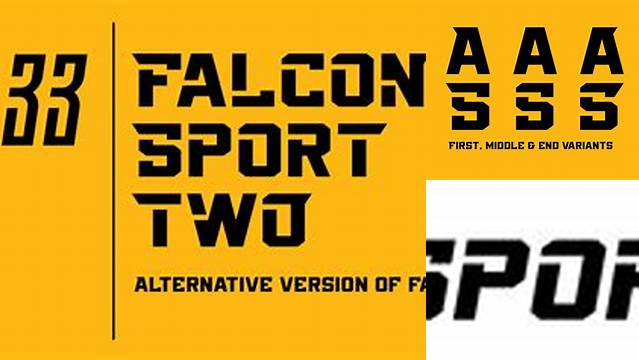
Diving Deeper: Exploring the Styles of Falcon Sport Font Family
If you're a font aficionado, you'll love this: the Falcon Sport Regular font often comes as part of a larger font family. This means you might find different styles such as bold, italic, or even different weights like light or heavy. This is fantastic because it gives you tons of options for your design work! Think about it: you could use Falcon Sport Regular for the main text, Falcon Sport Bold for headings, and Falcon Sport Italic for emphasis. This variety allows you to create visually interesting and engaging layouts. When you're searching for your free download, keep an eye out for the different styles within the Falcon Sport family. They'll usually be listed in the download package or on the download website. Check the file names too; they often indicate the style (e.g., Falcon Sport-Bold.ttf). Having multiple styles at your fingertips will elevate your designs, making them look more professional and polished. Always be sure to download the fonts you want, as well as all the related ones.
Understanding the Falcon Sport Regular Font: A Detailed Look
Let's get to know the Falcon Sport Regular font a bit better, shall we? This font is generally known for its clean, modern look, making it a fantastic choice for various design projects. It's a sans-serif font, meaning it doesn't have those little strokes (serifs) at the end of the letters. This gives it a sleek and contemporary vibe. It’s a versatile font, meaning it looks good in headlines, body text, and even logos. The characters are usually well-proportioned and easy to read, contributing to its popularity. Whether you're designing a website, creating marketing materials, or working on a personal project, Falcon Sport Regular can add a touch of professionalism and style. Consider the overall tone of your project when choosing a font, and Falcon Sport Regular fits many uses perfectly. The clean lines and simple letterforms make it a popular choice for both digital and print designs. This font is widely used in sports-related branding and design, which makes it very recognizable.
The Design Aesthetics of Falcon Sport Regular
Now, let's dive into the design aesthetics. The Falcon Sport Regular font often has a balanced and harmonious appearance. The letterforms are usually well-defined, with clear shapes that make it easy to read at different sizes. The overall design often suggests strength, modernity, and a sense of movement. This can be perfect for projects related to sports, fitness, technology, or any other field that wants to convey a sense of energy and dynamism. The x-height (the height of the lowercase 'x') is generally moderate, which enhances readability. The spacing between the letters and words is often carefully considered to ensure visual comfort. Designers who favor clean and minimalist aesthetics will find Falcon Sport Regular an excellent choice. It's a font that doesn't scream for attention but provides a solid and reliable foundation for your design. Take the time to look at different examples of the font in use to gain a sense of its visual impact. This will help you understand how to leverage its strengths to create compelling designs. It's very important to notice how it's used by other designers, which can give you a better understanding of how to use it.
Comparing Falcon Sport Regular with Other Similar Fonts
If you're exploring font options, it's helpful to compare Falcon Sport Regular with other fonts. This helps you understand its unique qualities and how it fits into the larger font landscape. Consider fonts such as Roboto, Open Sans, or Helvetica Neue. These are all popular sans-serif fonts, known for their clarity and versatility. How does Falcon Sport Regular stack up? It might have a slightly more geometric feel, a different x-height, or a specific style that sets it apart. Think about the overall tone of your project. Does it need a font that's more formal, more playful, or more technical? When comparing fonts, pay attention to the details: the shape of the letter 'g', the curve of the 's', and the weight of the strokes. These details contribute to the font's overall personality. You might find that Falcon Sport Regular has a unique quality that makes it perfect for your design. Do some research, download a few samples of fonts you are considering, and try them out in your design software. You'll quickly get a feel for which font best meets your needs.
Using Falcon Sport Regular in Your Design Projects: Tips and Tricks
Okay, you've got your Falcon Sport Regular font installed. Now what? Let's talk about how to use it effectively in your design projects. First, consider the context of your project. Is it a website, a poster, a logo, or something else? Falcon Sport Regular works beautifully in a wide range of applications. It's great for headlines, especially when you want something bold and clear. It also works well for body text, especially when the design calls for a modern, clean look. Pay attention to the font size and weight. Adjust them to ensure readability. You might use a larger, bolder version for headings and a smaller, regular weight for the body text. Experiment with different colors and backgrounds to see how Falcon Sport Regular performs. It's a versatile font that complements various color palettes. Just to make sure it fits perfectly with the rest of your project. If you are working on a website, you can use it on your website to make it look modern and catchy. Finally, remember to maintain consistency throughout your design. Stick with a few carefully chosen fonts to create a cohesive and professional look. The best design is the one that looks perfect and is easy to understand.
Integrating Falcon Sport Regular into Logos and Branding
Falcon Sport Regular is a fantastic choice for logos and branding, where clarity and visual appeal are paramount. Its clean lines and modern design make it easily recognizable and memorable. When creating a logo, consider how the font will be used across various platforms. The logo should look good at different sizes and on different backgrounds. This is where the versatility of Falcon Sport Regular shines. Experiment with different color schemes and variations of the font (bold, italic) to find the perfect look for your brand. Keep your logo simple. A clean and concise design is more effective. You might choose the regular weight for the logo itself and use the bold or italic version for taglines or supporting text. Make sure the logo reflects the personality and values of your brand. Does it need to look sporty, technical, or sophisticated? Let Falcon Sport Regular and your design choices convey the message. Once you're happy with your logo, create brand guidelines. This ensures consistency across all your marketing materials. This is to make sure it represents the brand perfectly.
Social Media Channels for Font Inspiration: Falcon Sport Regular
Social media can be a fantastic source of font inspiration, especially when you're looking for examples of Falcon Sport Regular in action. Instagram and Pinterest are excellent platforms to explore. Search for hashtags like #fonts, #typography, and #FalconSportRegular to find design inspiration. Look for accounts that focus on design and typography. These accounts often showcase projects that utilize fonts like Falcon Sport Regular. Save posts that catch your eye. Create a mood board or collection of inspiring designs. Take note of how the font is used in logos, websites, and other visual materials. Use the comments section to ask questions and connect with other designers. Engaging with the design community can be a source of new ideas. Follow font designers and typography experts. They often share behind-the-scenes glimpses of their work. By staying active on social media, you can keep up with the latest design trends and find fresh ideas for using Falcon Sport Regular. It’s a fantastic way to grow your creativity, and see new approaches to different designs. Social media can also help you develop a better idea of how the font can be used. Be inspired by it!